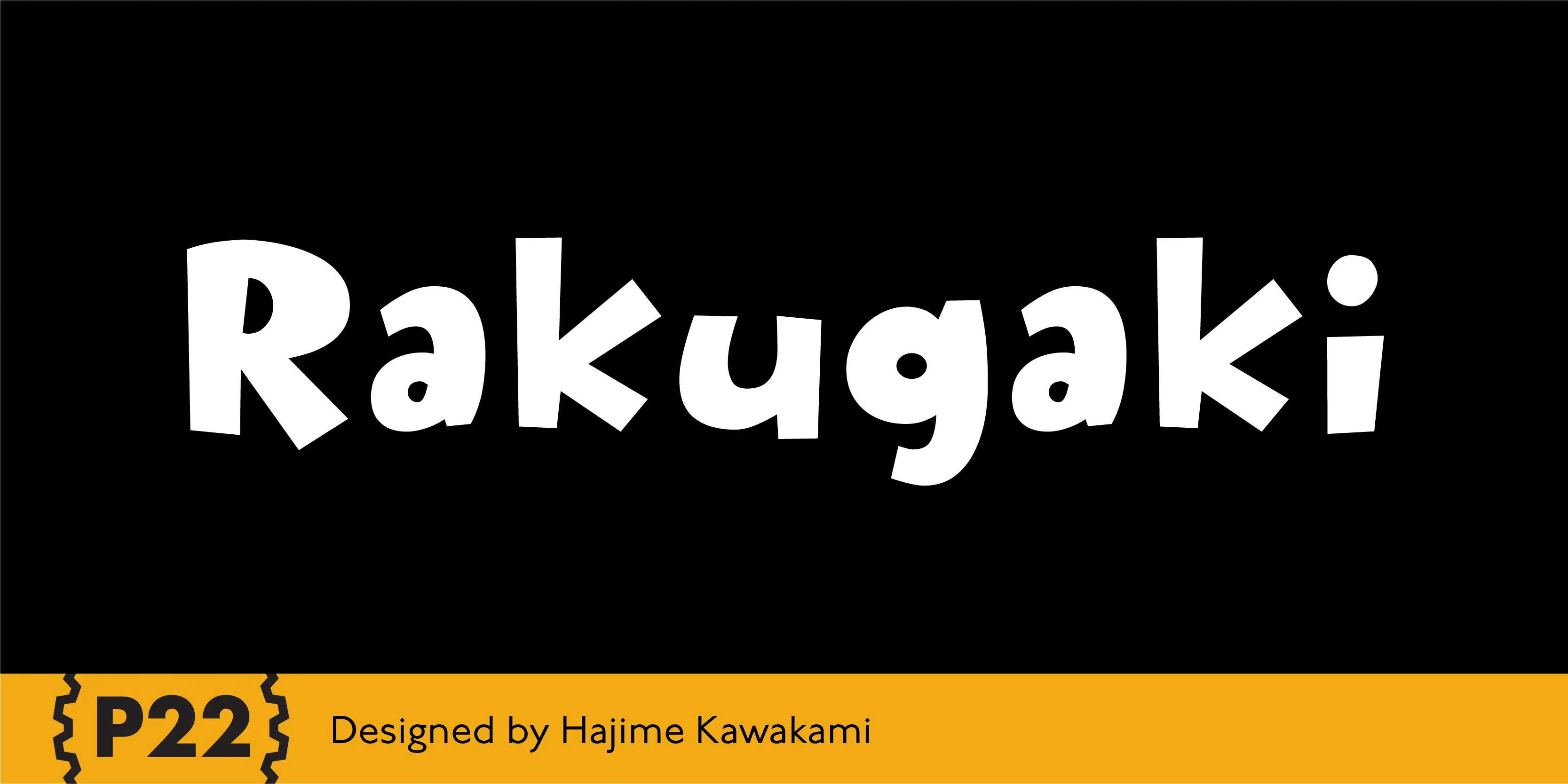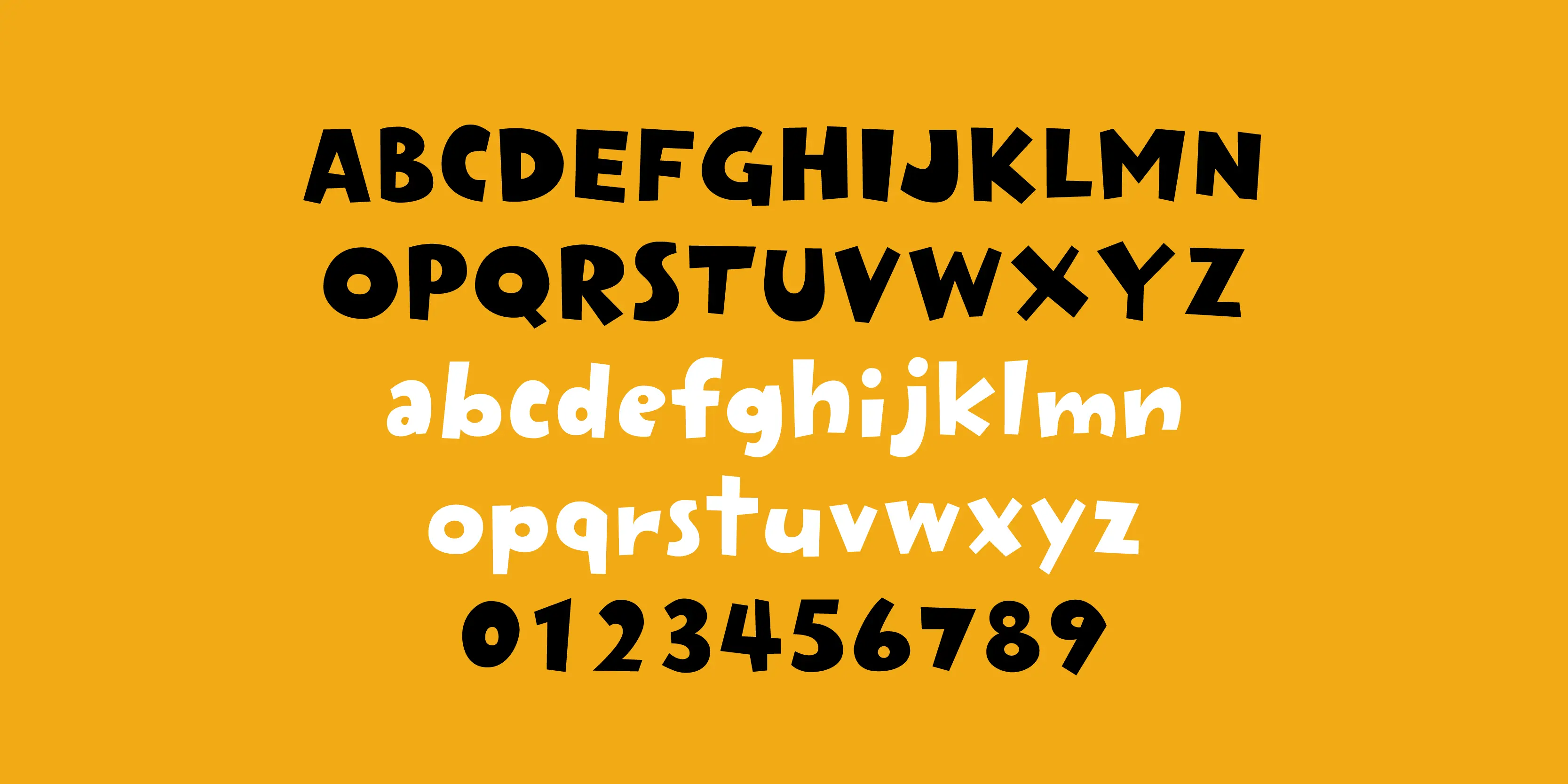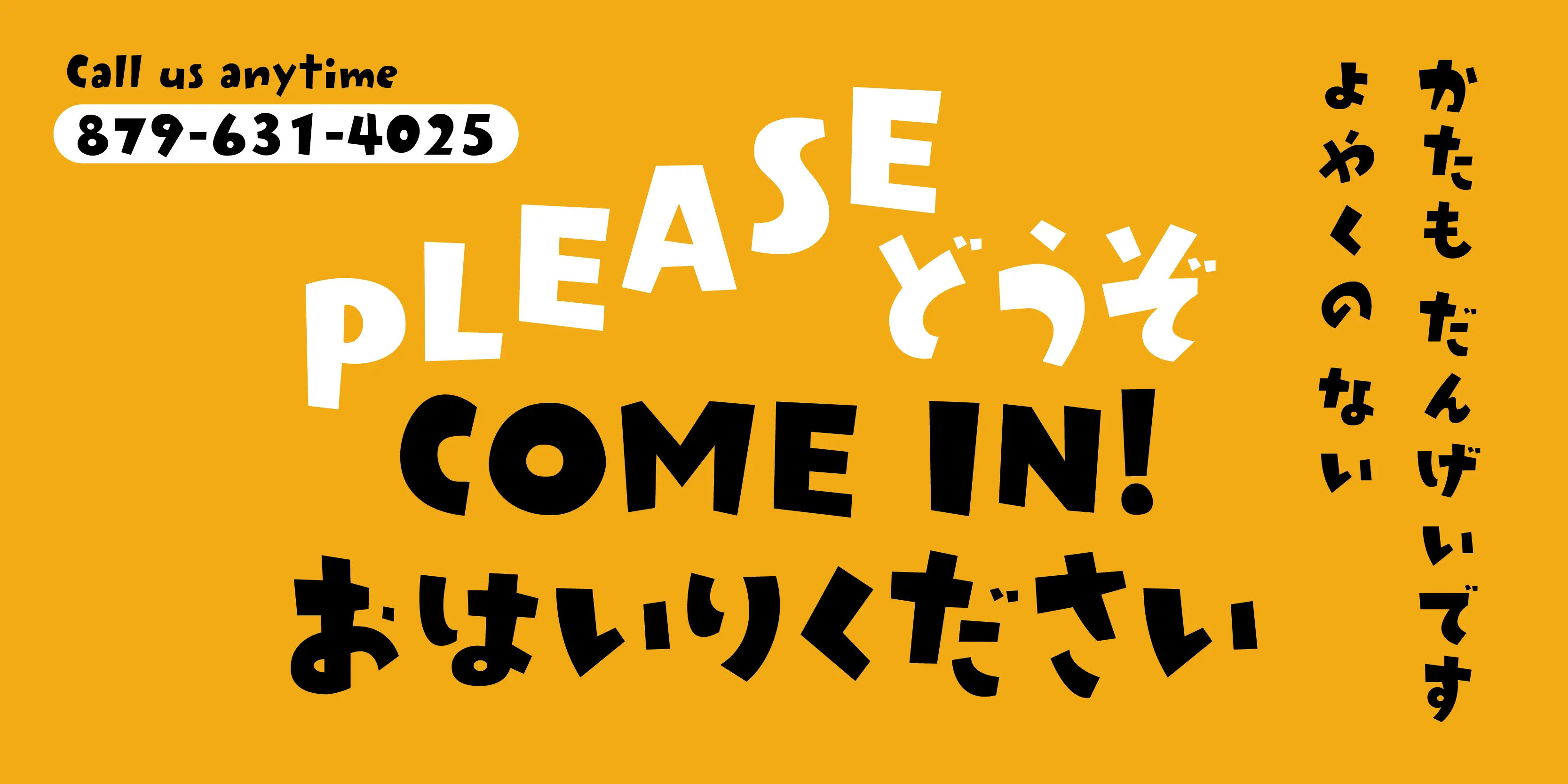
Rakugaki Font
Rakugaki
Rakugaki means “scribble” in Japanese. This font expresses casual handwriting with warmth and simplicity. The bold weight of Rakugaki is harmoniously integrated in all three writing systems (Katakana, Hiragana, and Latin).